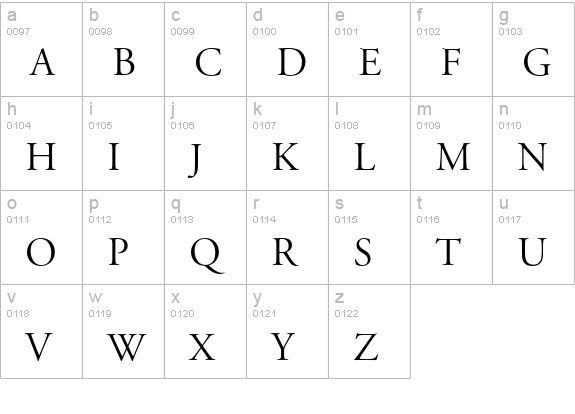
Adobe Garamond Titling Capitals Font Details
Adobe Garamond Titling Capitals is a timeless and elegant font, embodying the classic characteristics of the Garamond typeface with a bold and commanding presence. The titling capitals exude sophistication and refinement, making them perfect for enhancing the visual appeal of any design project. Each letter is meticulously crafted with exquisite details and graceful curves, showcasing the craftsmanship of traditional typography. What makes this font even more appealing is that it is available for free download at FontsMarket.com. This means that designers and creatives can easily access this premium font without any cost, adding a touch of luxury and prestige to their work without breaking the bank. Whether used for headings, titles, or logos, Adobe Garamond Titling Capitals is sure to make a lasting impression with its refined aesthetic and superior quality.